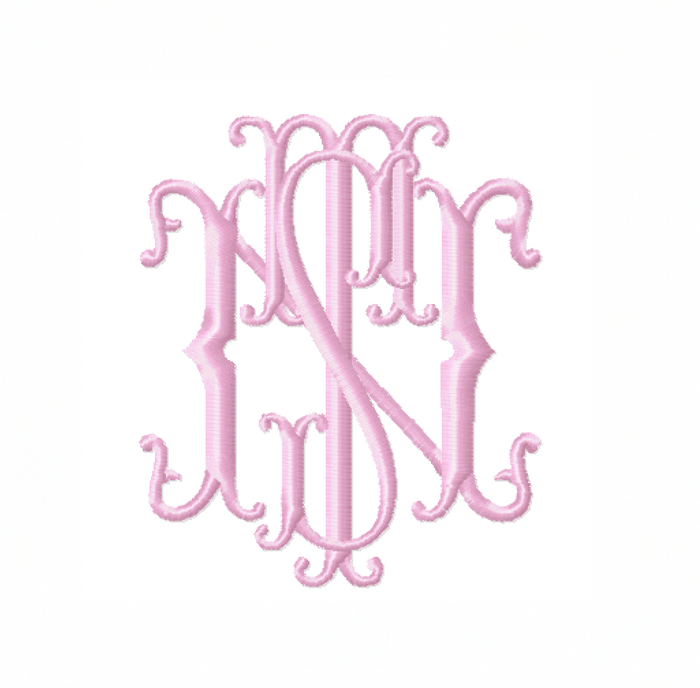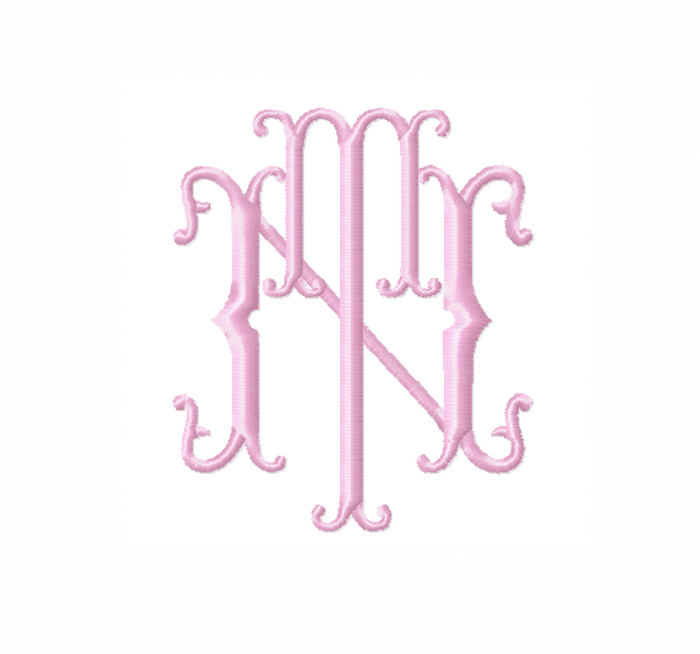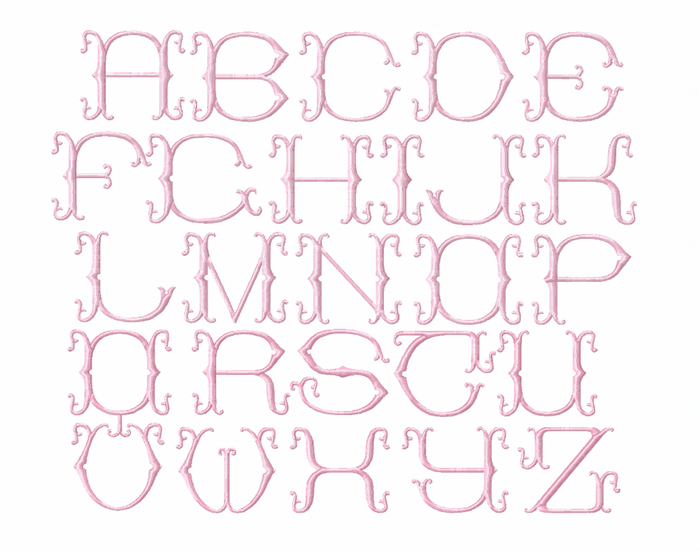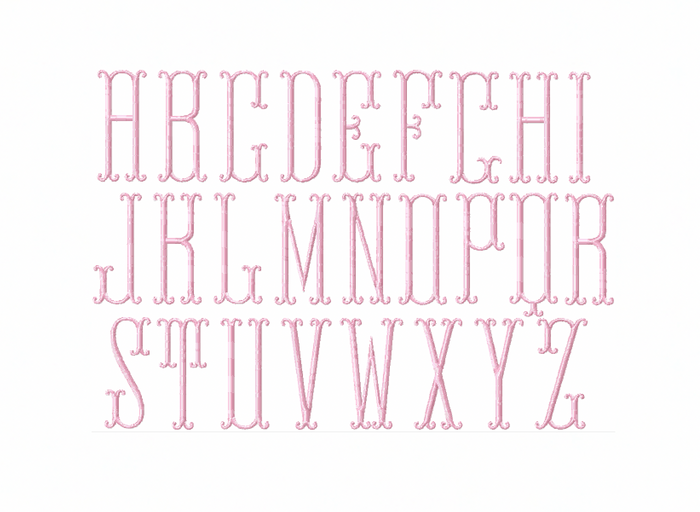
Sutton Satin Stitch Embroidery Font
Unleash your creativity with the Sutton Satin Stitch Embroidery Font, perfect for crafters looking to create stunning personalized designs. This package includes four sizes, featuring 52 letters in each size, enabling you to craft complete two-letter or three-letter monograms effortlessly.
The font package includes 26 tall thin letters and 26 shorter wide letters in each size, ensuring versatility for your crafting needs. Size options range from 3.5" to 1.5", accommodating a variety of projects.